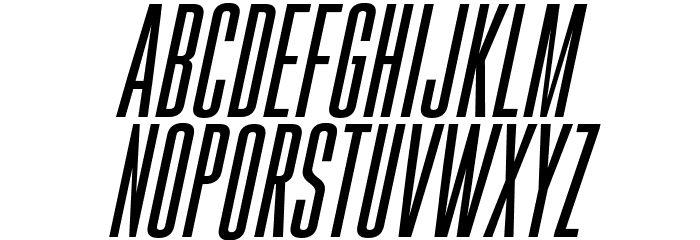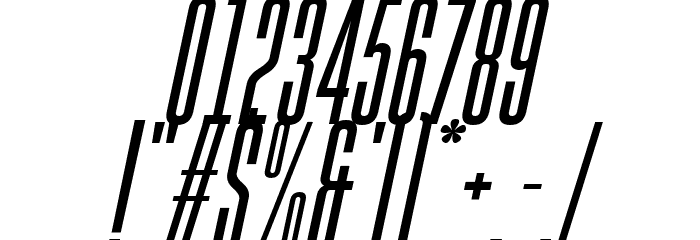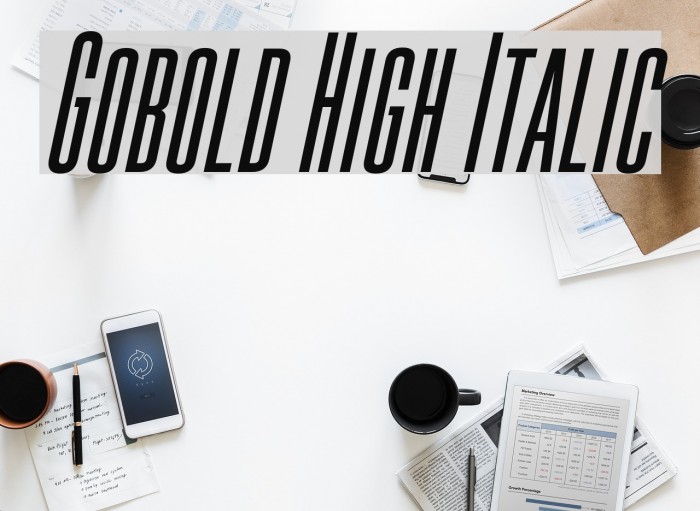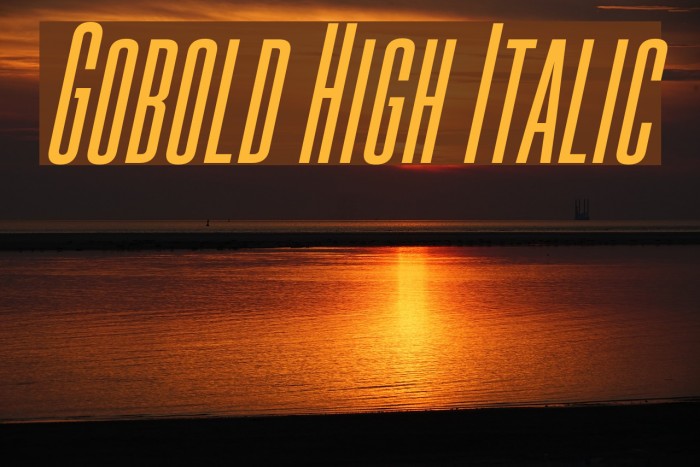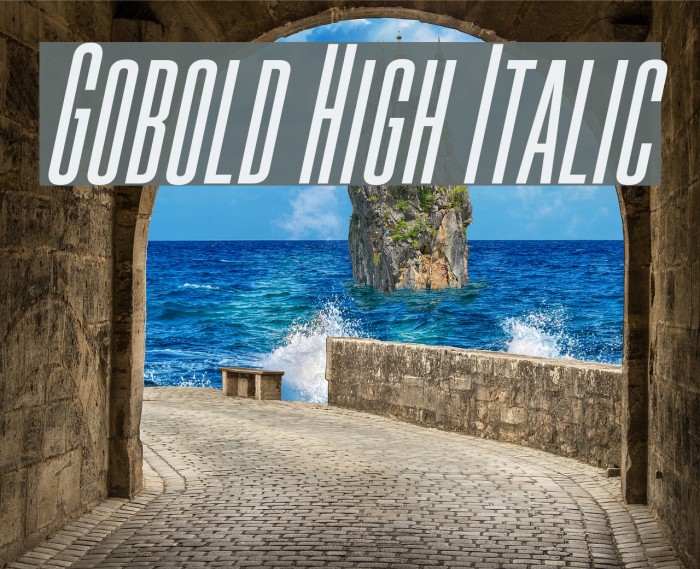
Gobold High Italic Font
This font features a bold and dynamic design with a pronounced italic slant, giving it a sense of motion and energy. The characters are tall and narrow, creating a sleek and modern appearance. The strokes are consistent in weight, contributing to a uniform look across all characters. This font is highly legible, even at smaller sizes, due to its clean lines and distinct letterforms. It includes a full set of uppercase and lowercase letters, numbers, and a variety of special characters, making it versatile for various design needs.
A bold, italic font with a sleek, modern design and consistent stroke weight.
- Proposed Projects: Ideal for sports branding, dynamic posters, modern advertisements, and any project requiring a strong, energetic typeface.
- Character Spacing: Tight